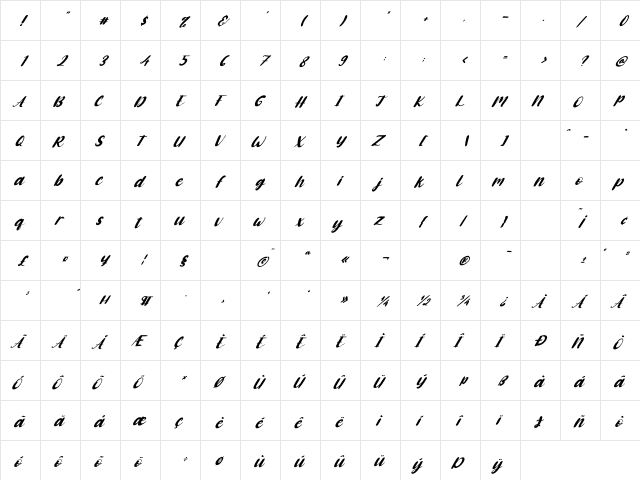
Cute Cartoon Italic Regular
Design Context for Cute Cartoon Italic Typeface
Cute Cartoon Italic trades formality for fun, with bouncy, characterful letterforms that bring warmth and energy to any project. The dynamic lean of this cut emphasises speed and emphasis in any layout.
Font Pairing: Pairs well with a rounded or humanist sans for body copy, maintaining the friendly tone without relying on Cute Cartoon Italic to carry extended reading.
Pro Tip: Use Cute Cartoon Italic at larger display sizes where its expressive character can land. Pair with a clean, simple sans for body copy to maintain readability.